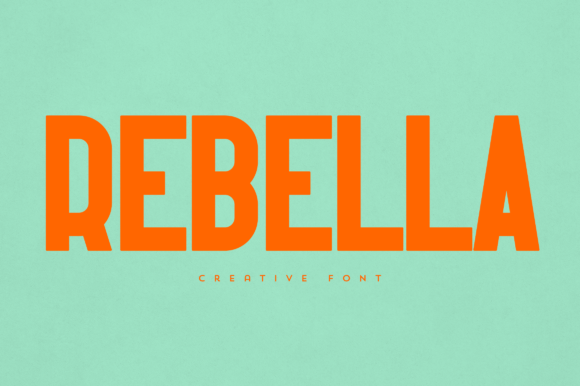
Indulge in the captivating allure of Rebella, a sans serif font that will unleash the true essence of your design endeavors. Crafted with meticulous attention to detail, Rebella shimmers with elegance and versatility, transforming your typography into a masterpiece.
Step into a world where monograms dance with ethereal beauty, each stroke of Rebella carrying the promise of love and individuality. Let it adorn your wedding invitations, entwining names in a timeless embrace. As a branding virtuoso, Rebella will elevate your logo to unprecedented heights, imbuing it with a touch of sophistication and charm.
Unleash your creativity and let Rebella ignite the flames of inspiration within you. Whether you're designing exquisite home-ware, crafting eye-catching product packaging, or captivating magazine headers, Rebella will seamlessly integrate into your vision, adding a touch of elegance and allure.
Dare to venture beyond the ordinary and embrace the transformative power of Rebella. Its graceful curves and impeccable balance will elevate your projects to new heights, leaving an unforgettable impression on all who encounter its beauty. Experience the magic of Rebella today and let your designs bloom with newfound enchantment.